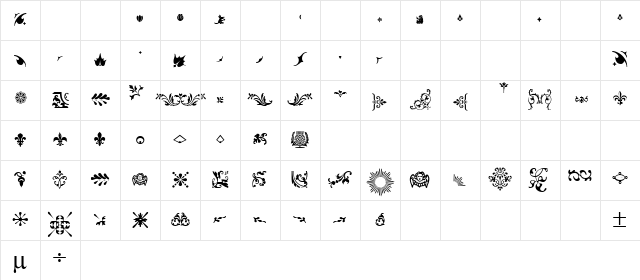
Fleurons Regular
Design Context for Fleurons
Fleurons is a composed and adaptable typeface that performs quietly and consistently across a wide range of design contexts.